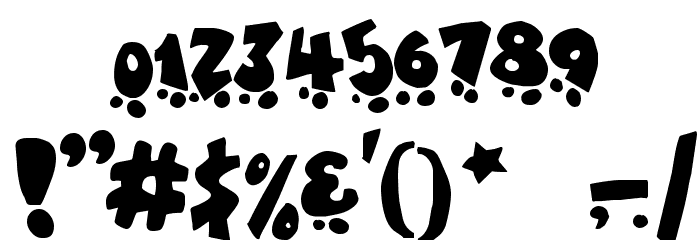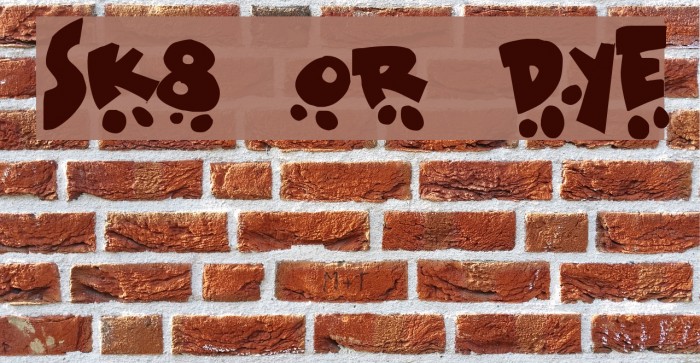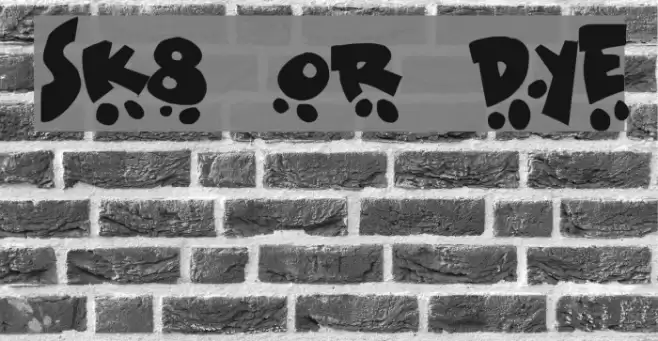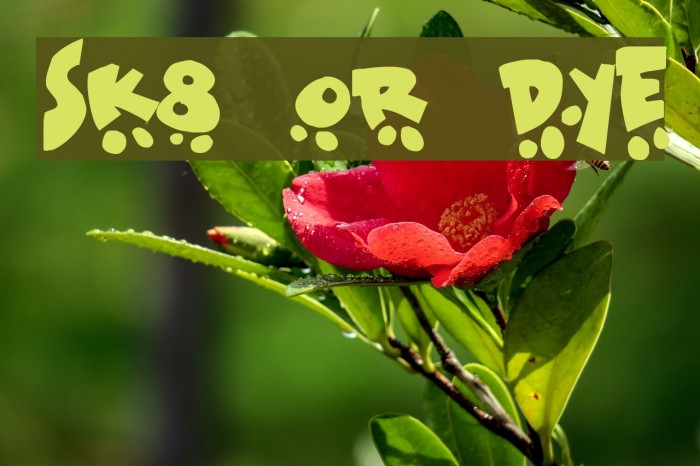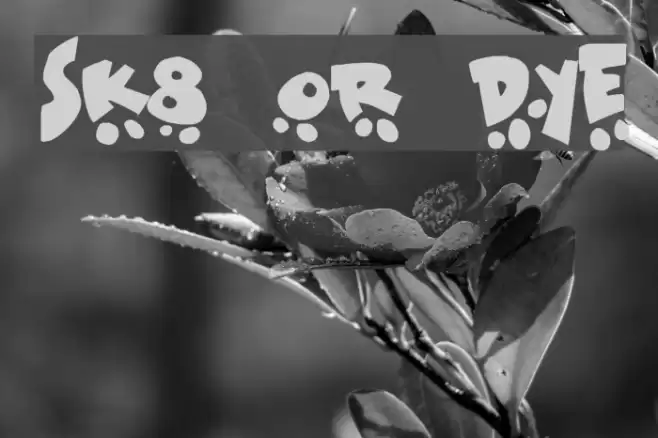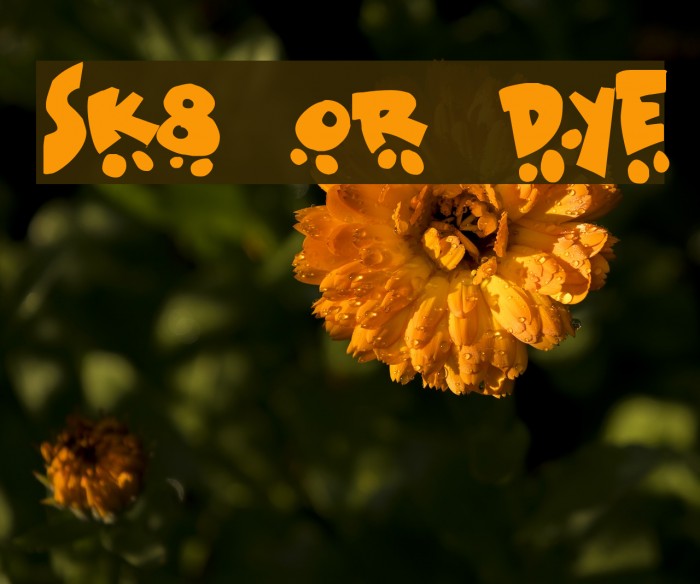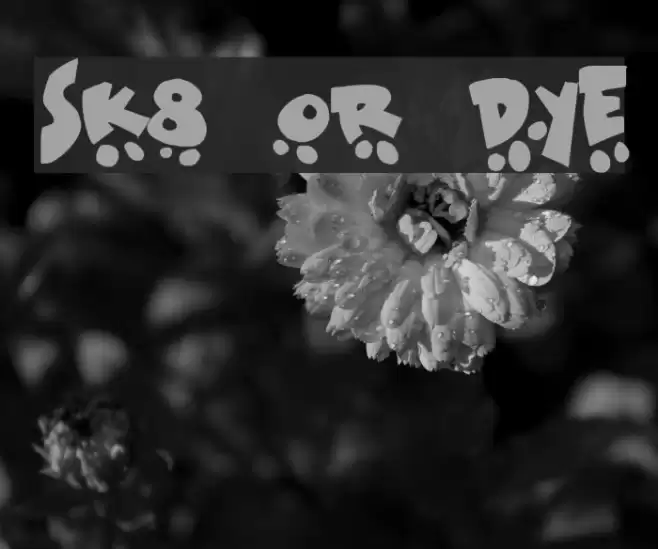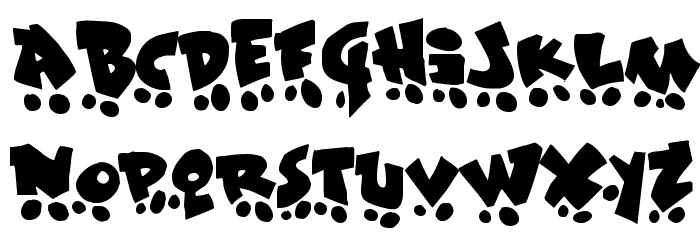
Sk8 or dye Font
This font features a bold and playful design with exaggerated, irregular shapes that give it a dynamic and energetic feel. The characters are heavily stylized, with thick strokes and a slightly chaotic appearance, reminiscent of graffiti or street art. The font includes both uppercase and lowercase letters, numbers, and a variety of special characters, all maintaining the same whimsical style. The overall look is eye-catching and unconventional, making it suitable for projects that require a fun and informal touch.
A bold, playful font with a graffiti-inspired style and irregular shapes.
• Proposed Projects: Ideal for skateboarding event posters, youth-oriented branding, streetwear designs, and music festival flyers.